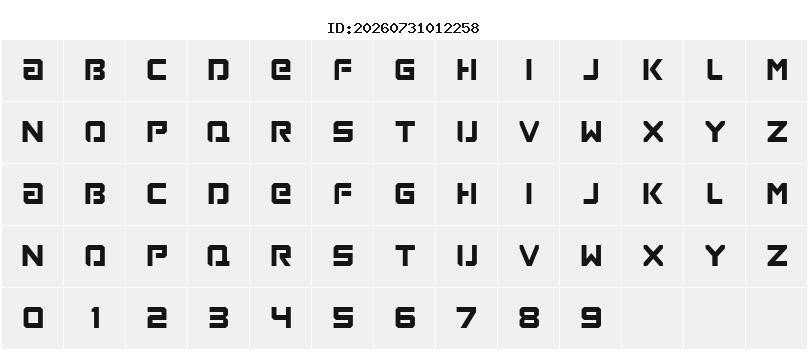
• Font Name: Loaded
• Full Font Name: Loaded
• PostScript Name: Loaded
• Designer: Geith Mankey
About Loaded.ttf
Loaded.ttf is a modern, elegant sans-serif font designed for ultimate readability and visual harmony. Perfect for branding, headlines, web design, and print materials.